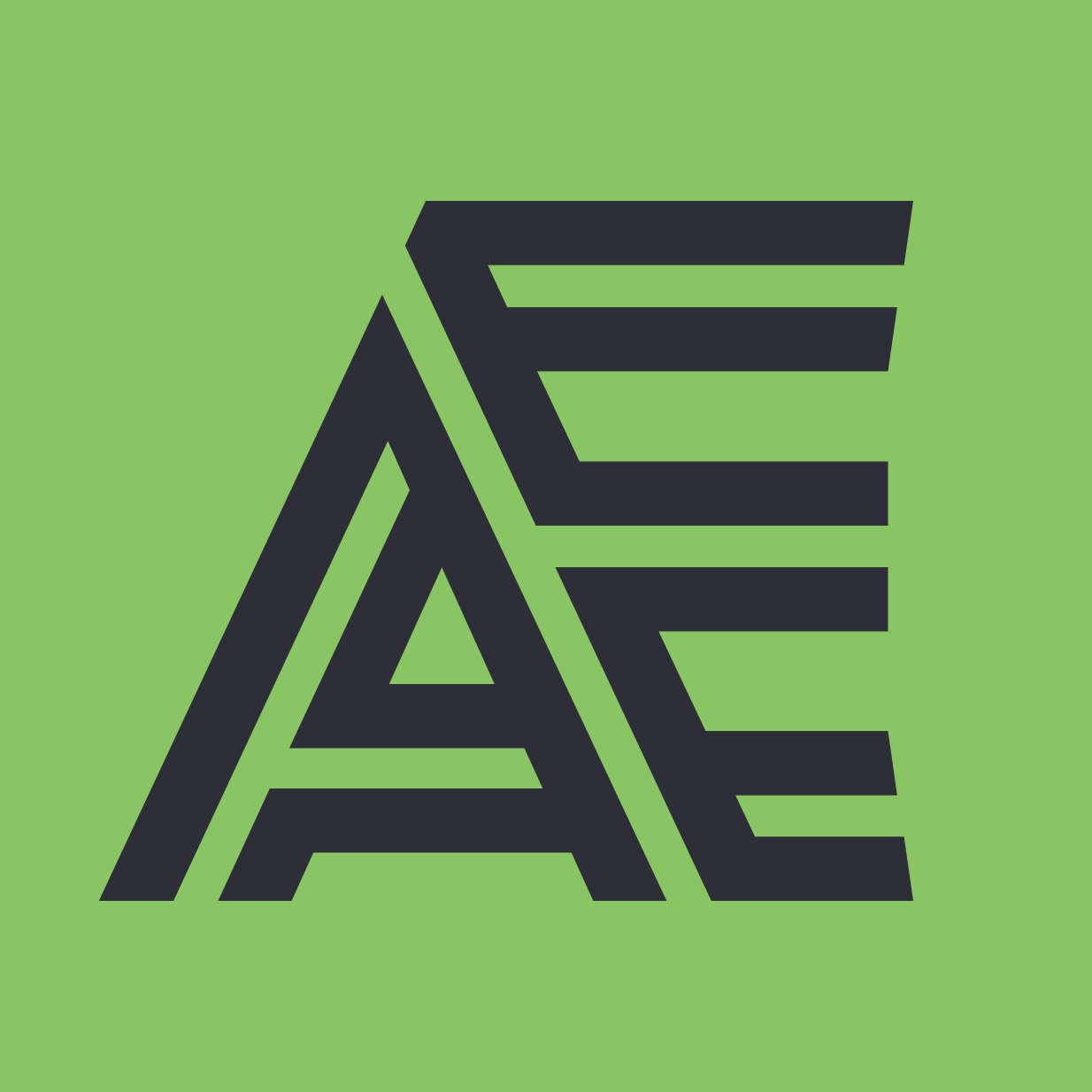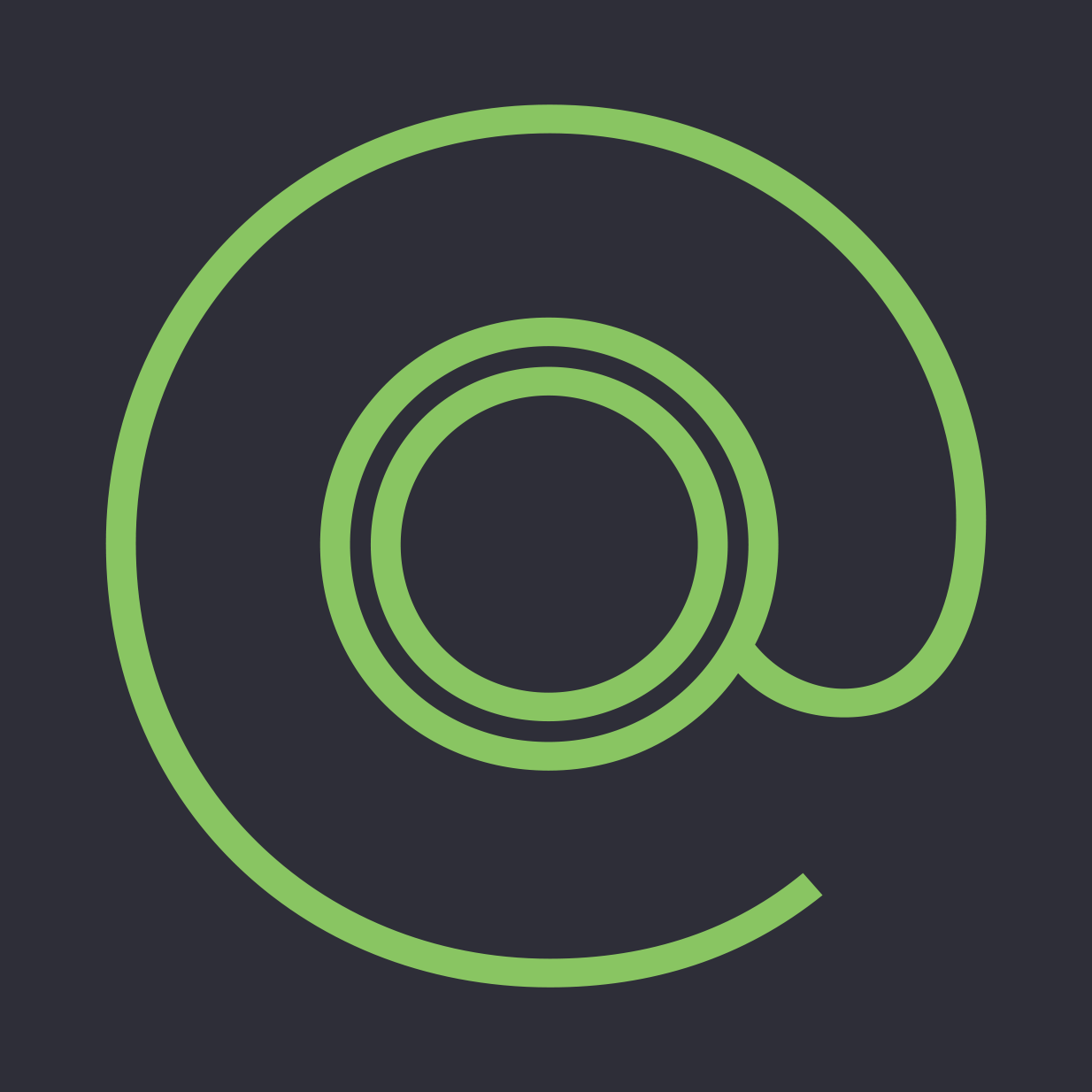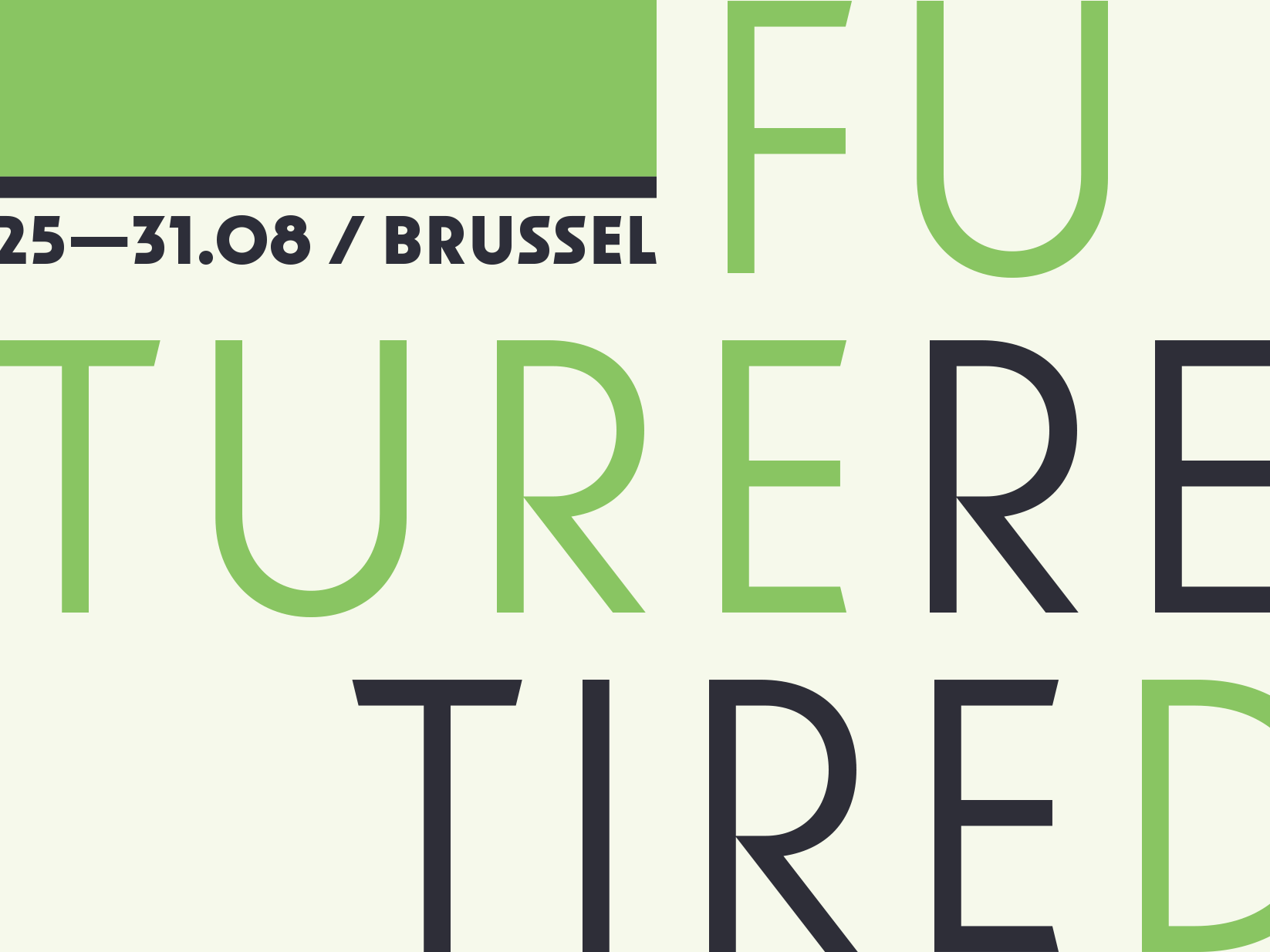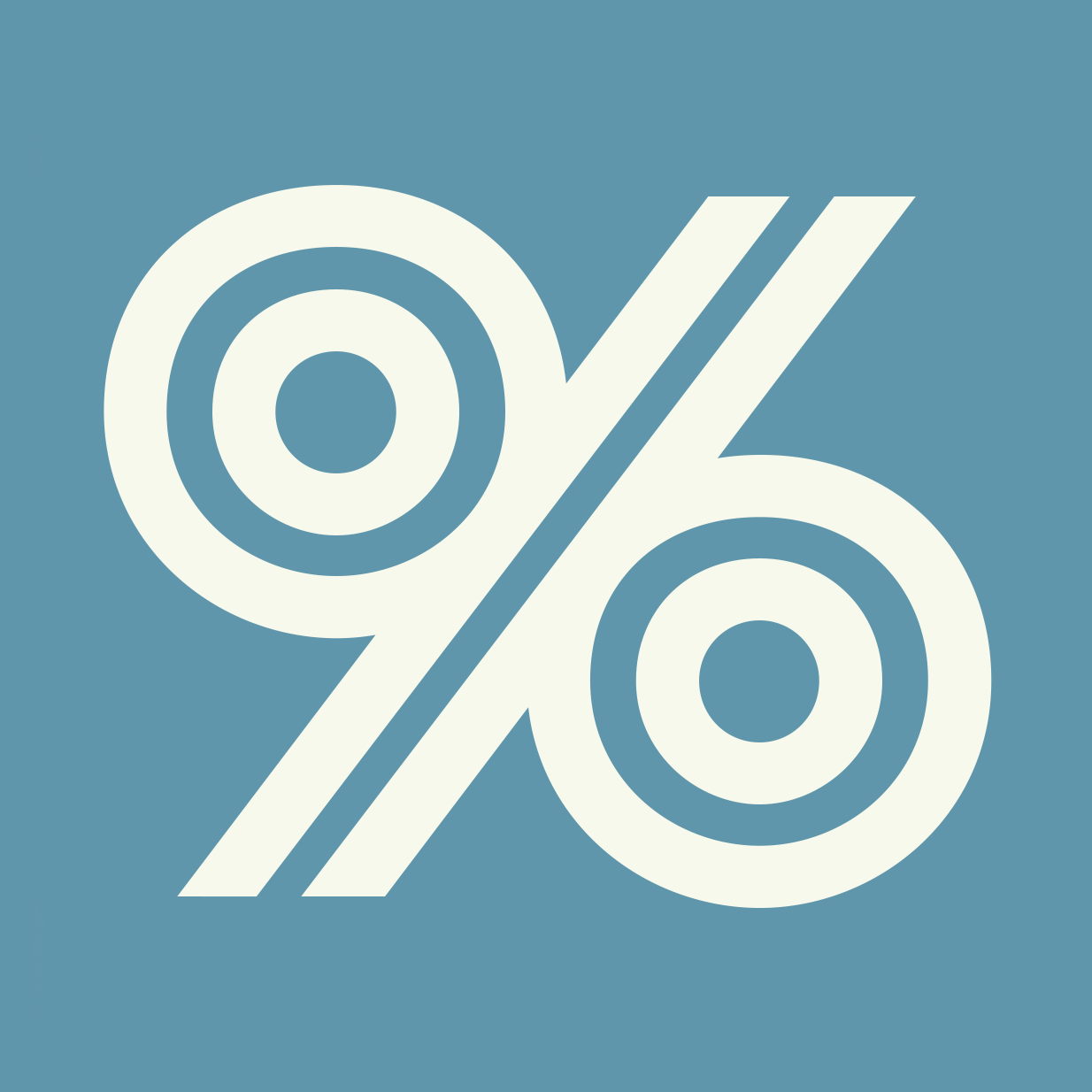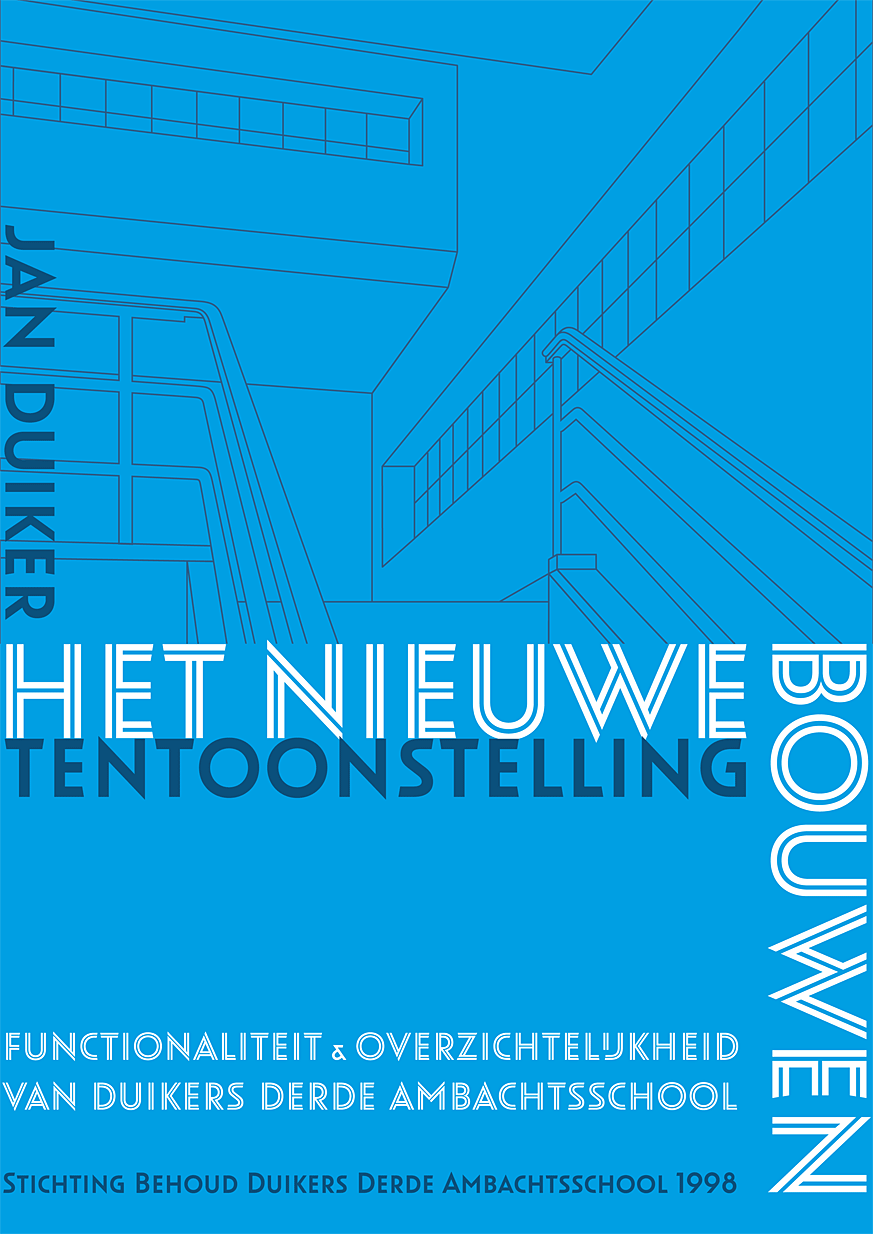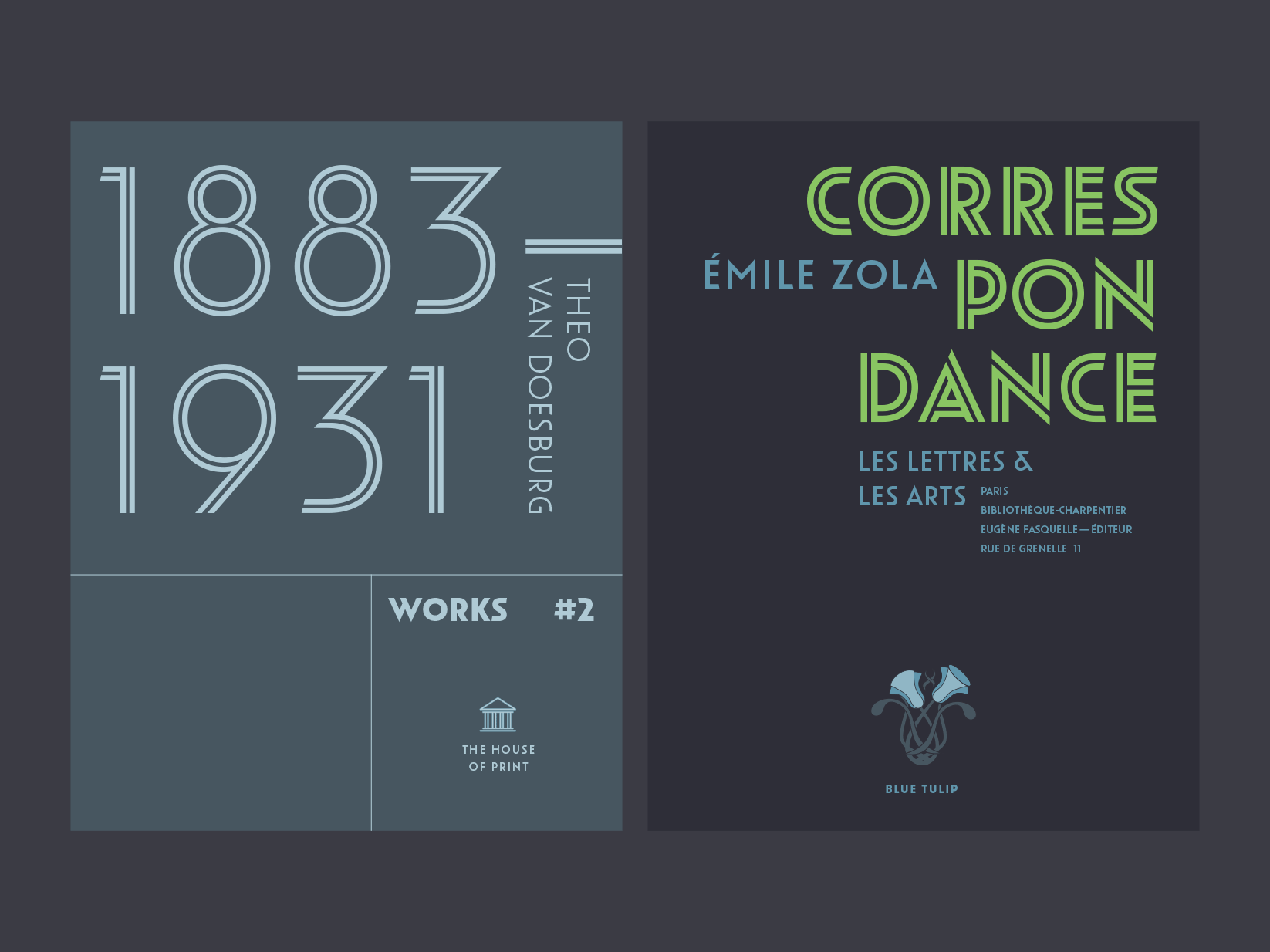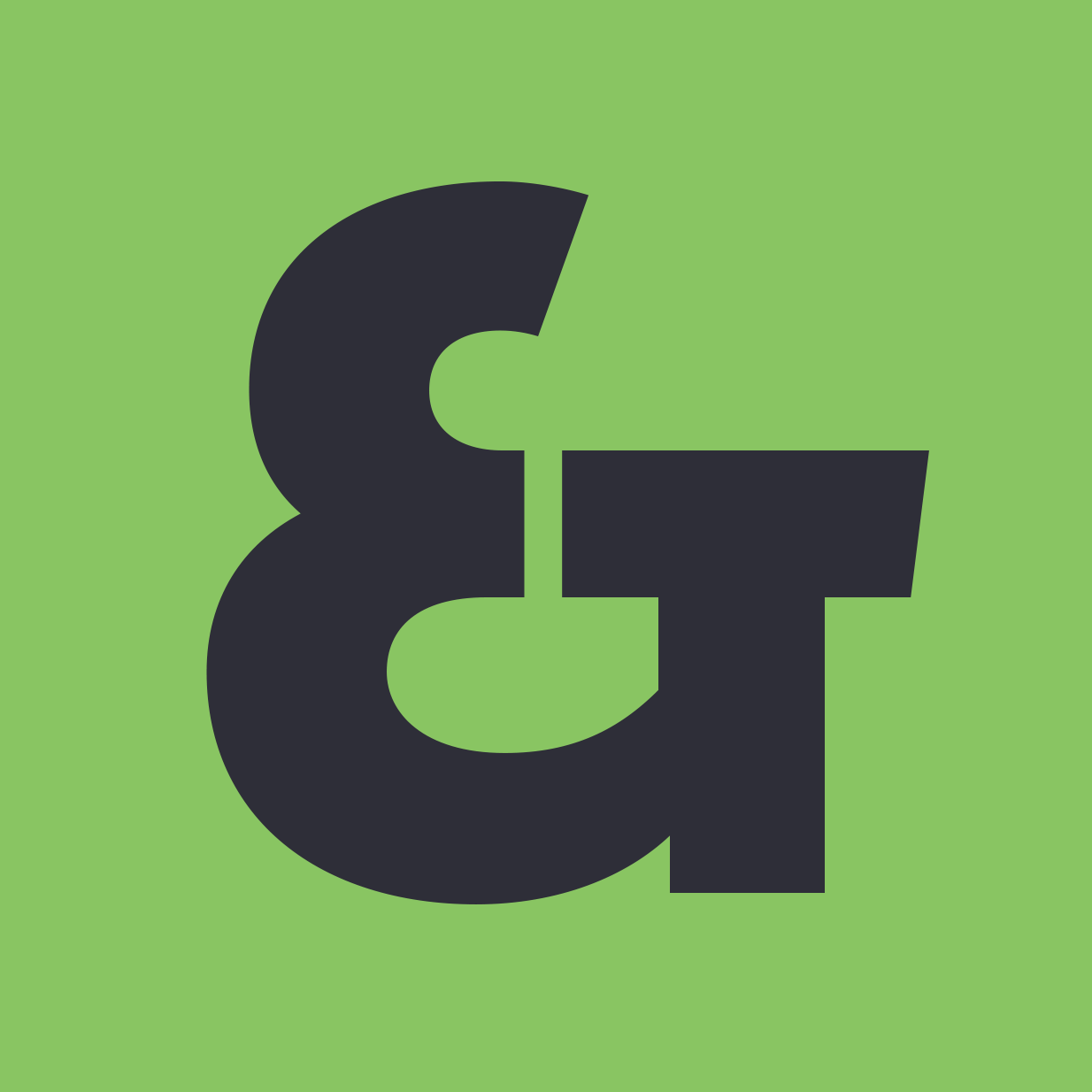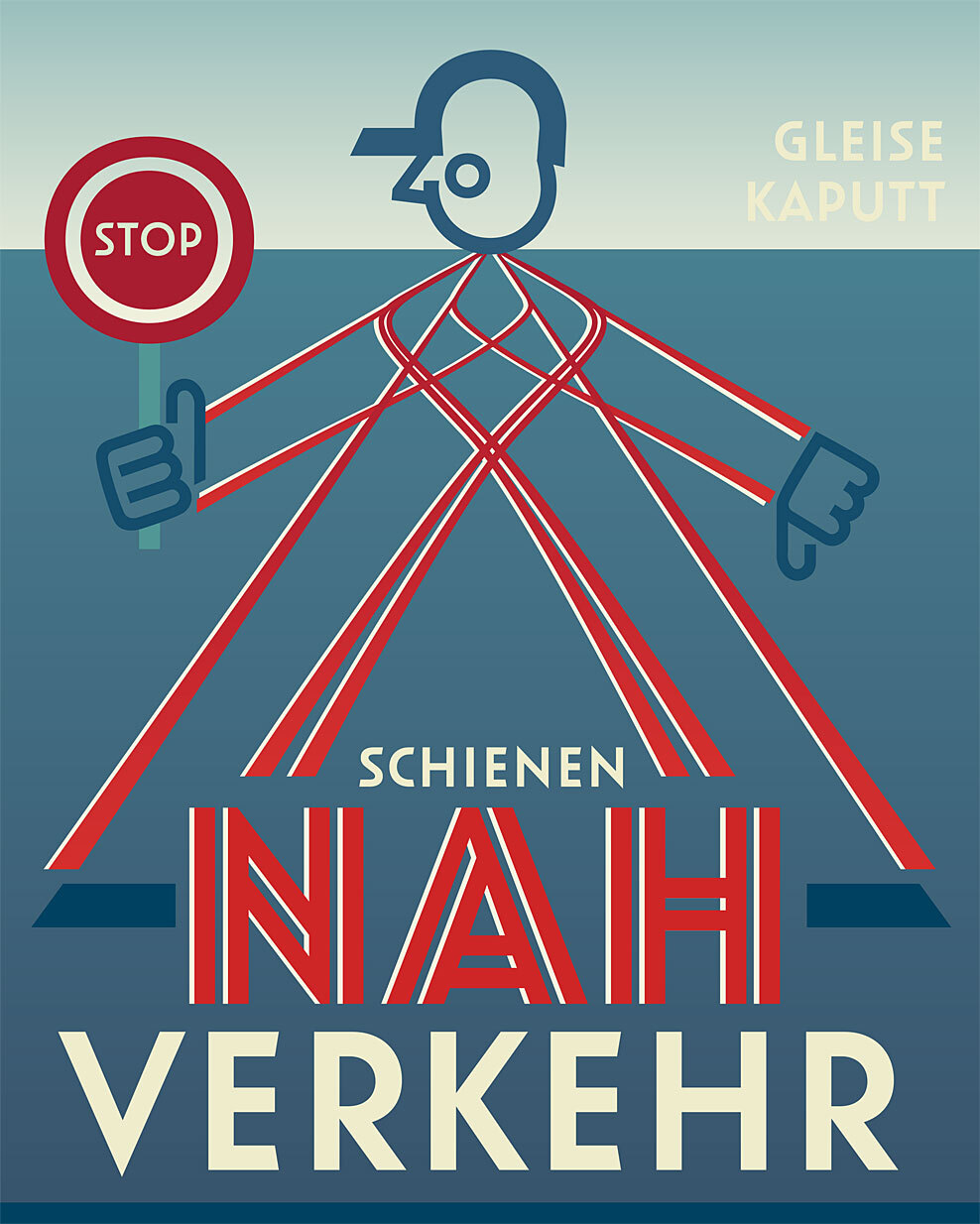
Oskar
Oskar is a all-caps type series inspired by Dutch architectural and commercial letterings from the early 20th century, particularly those painted on walls and shopfronts or executed in metal. This style of letters did not exist as printing type but was cultivated by sign painters, draftsmen and architects, and passed on in lettering manuals.
A first version of Oskar was initially drawn in 2002 for the lettering of a heritage-protected school in The Hague, designed by architect Jan Duiker in 1929. Since then, the family has been expanded into multiple styles and weights.
Oskar is available in two ‘flavours’ — One and Two — each in three weights, and each weight accompanied by an inline variant. Oskar One stands firmly in the tradition of Dutch 1920s lettering, with pointy apices and expressive, less conventional letterforms. Oskar Two is more tamed and regular, closer to classical geometric sans-serifs yet still exuding its relation to the Art Deco style. The carefully drawn (and manually hinted) inline styles highlight Oskar’s qualities as a versatile display and titling face, on screens as well as on façades.
Designer
Paul van der Laan
2002–2013